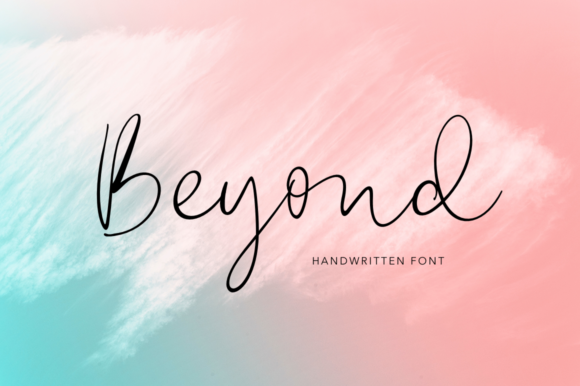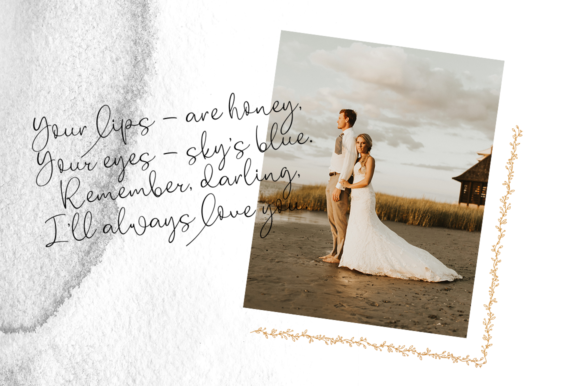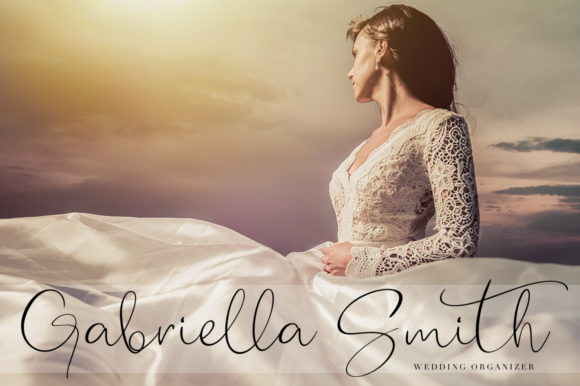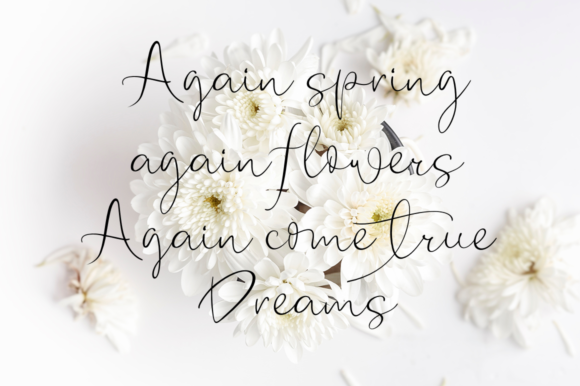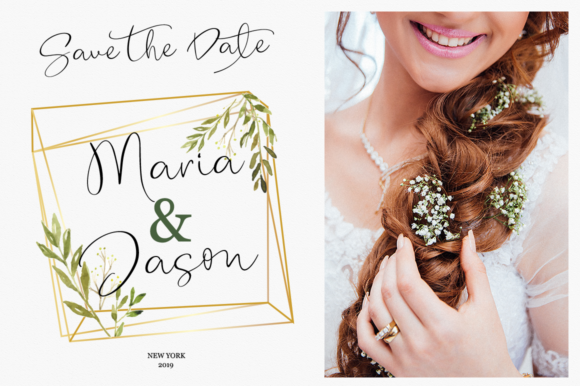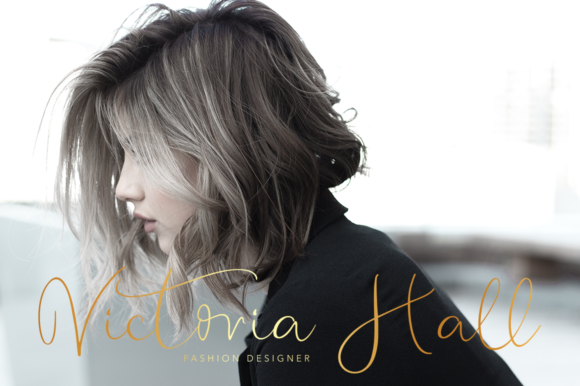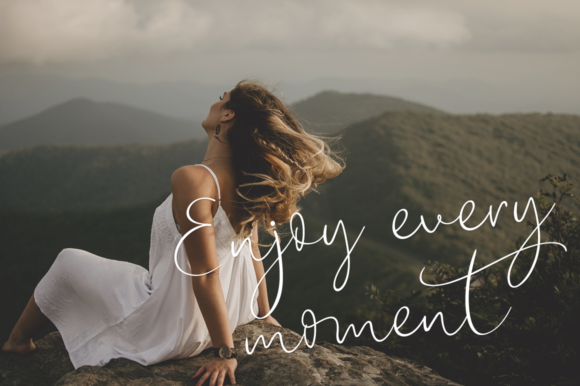
Beyond Font
About Beyond Font
Beyond is a romantic and breezy handwritten font with an authentic, elegant twist. Fall in love with its lightness, and turn any design project into a stunner!